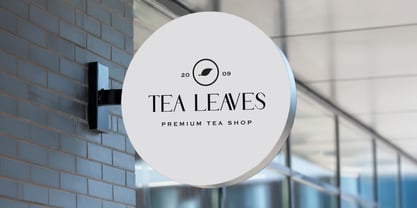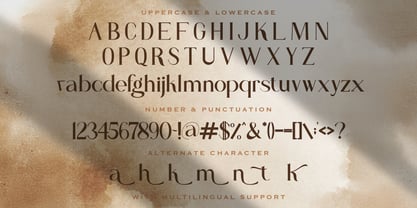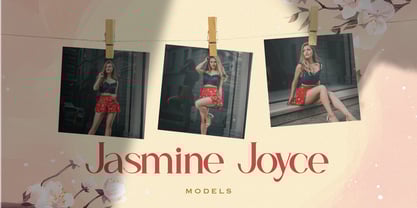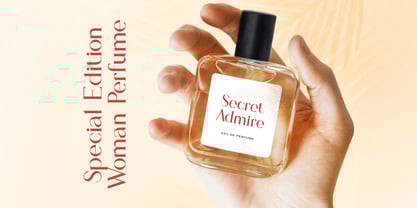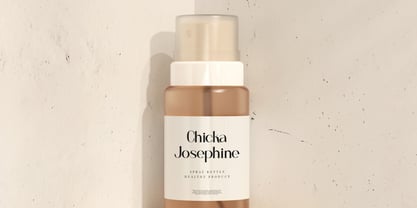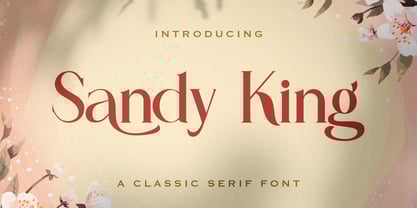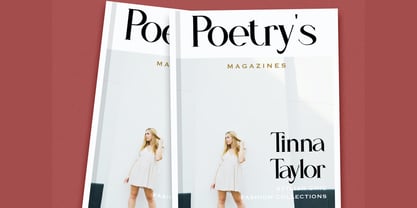
The Sandy King Font Family was designed by Virgiawan Listanto and published by Stringlabs Creative Studio. Sandy King contains 1 styles. More about this family
Sandy King is a laid-back yet elegant serif font with a modern twist. Featuring soft curves and refined letterforms, this font blends classic charm with a casual, approachable feel perfect for designs that need a touch of warmth and sophistication.